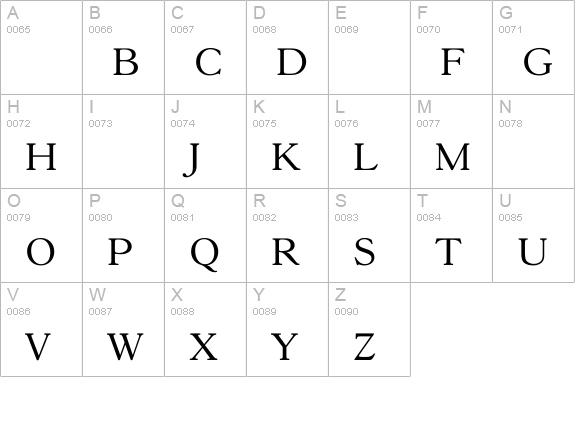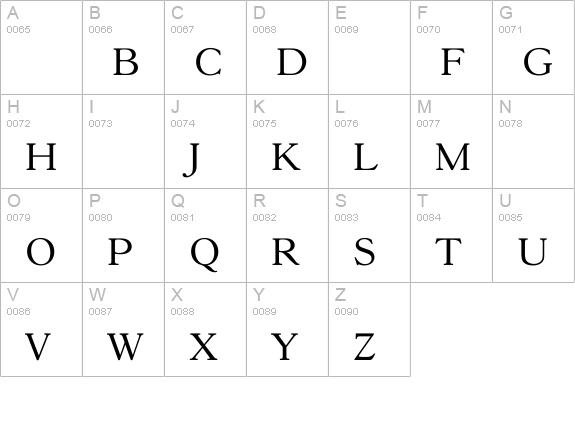
GoudY38Book Font Details
GoudY38Book is a classic and elegant serif font that exudes sophistication and charm. With its timeless appeal and graceful letterforms, this font is perfect for adding a touch of refinement to any project or design. The slender serifs and balanced proportions of GoudY38Book make it a versatile choice for a wide range of applications, from branding to editorial design. What's even better is that GoudY38Book is available for free download at FontsMarket.com. Yes, you read that right - you can get your hands on this exquisite font without spending a dime. So why wait? Elevate your designs with the timeless beauty of GoudY38Book today!